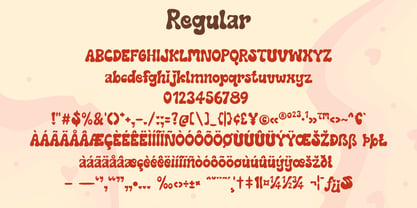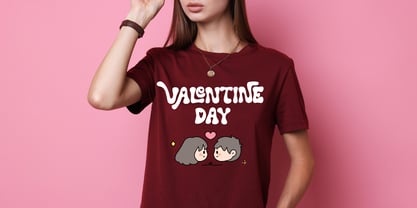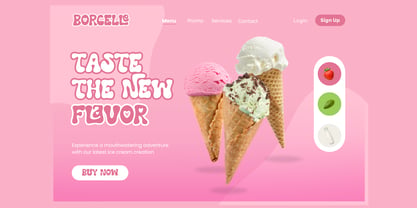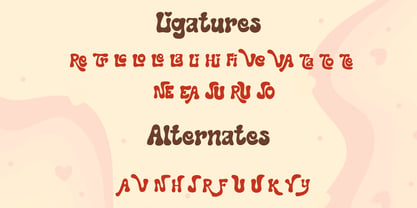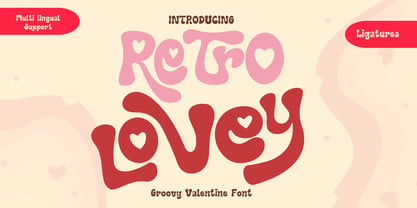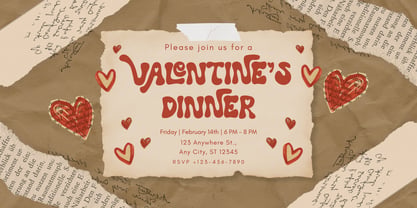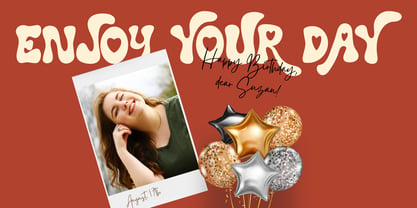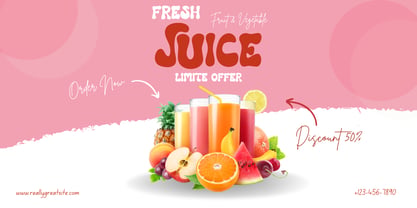
Retro Lovey
by Brown Cupple Typeface
The Retro Lovey Font Family was designed by Nattha​ Potchanad​ and published by Brown Cupple Typeface. Retro Lovey contains 1 styles. More about this family
Retro Lovey is a Valentine’s Day display font. It embodies playfulness and authenticity and is the perfect choice for all your favorite projects, or even for blog posts, logos, branding, ads, invitations, greeting cards, planners, photo albums, decorations, and much more. Add it to any of your designs, and enjoy the results. Its groovy curves and charming personality instantly bring warmth, romance, and a nostalgic retro vibe to any creative work.